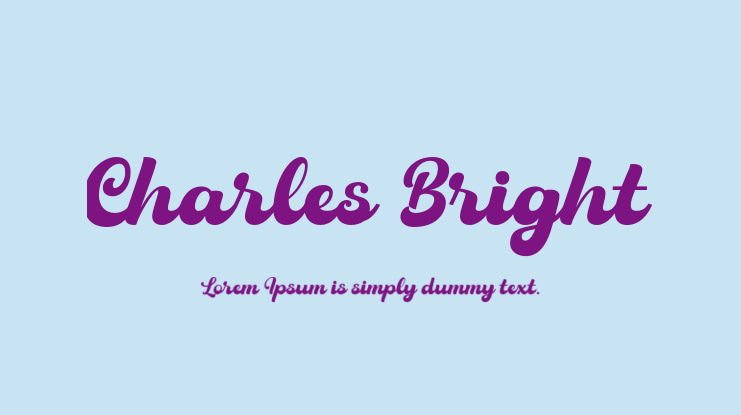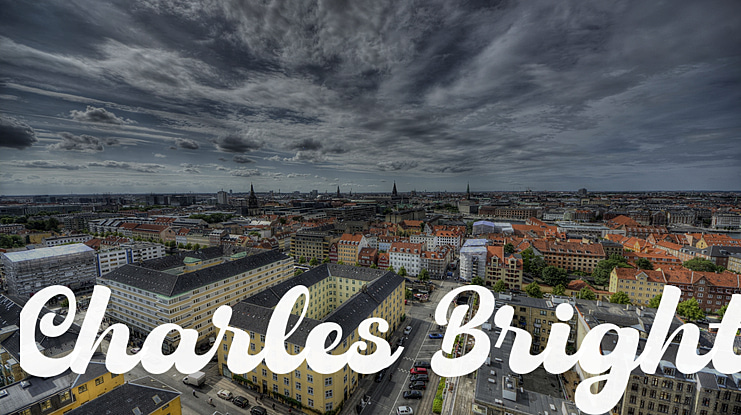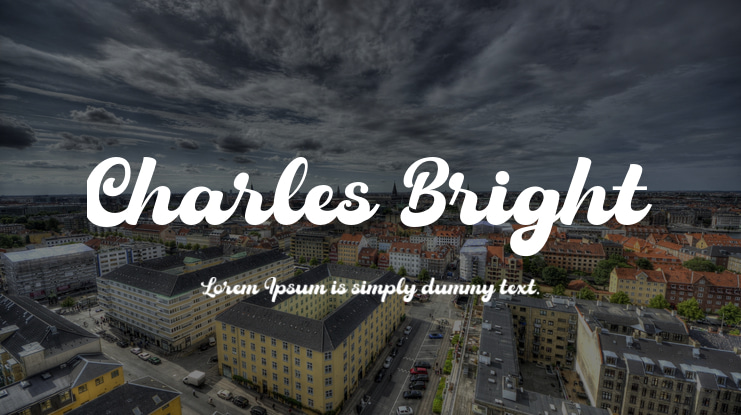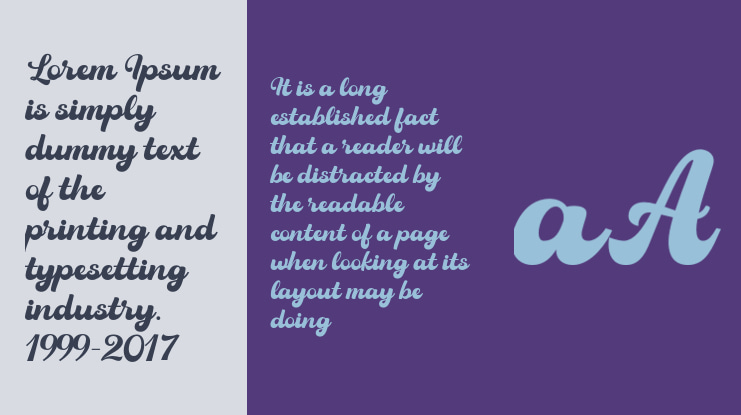
Charles Bright Font
This is a stylish and retro handwritten font. Fall for its ravishing style and use it to create gorgeous designs. Charles Bright is a modern script perfect for wedding invitations, calligraphy logos for branding, elegant websites, personalizing gifts, social media posts, and anything else your heart desires!